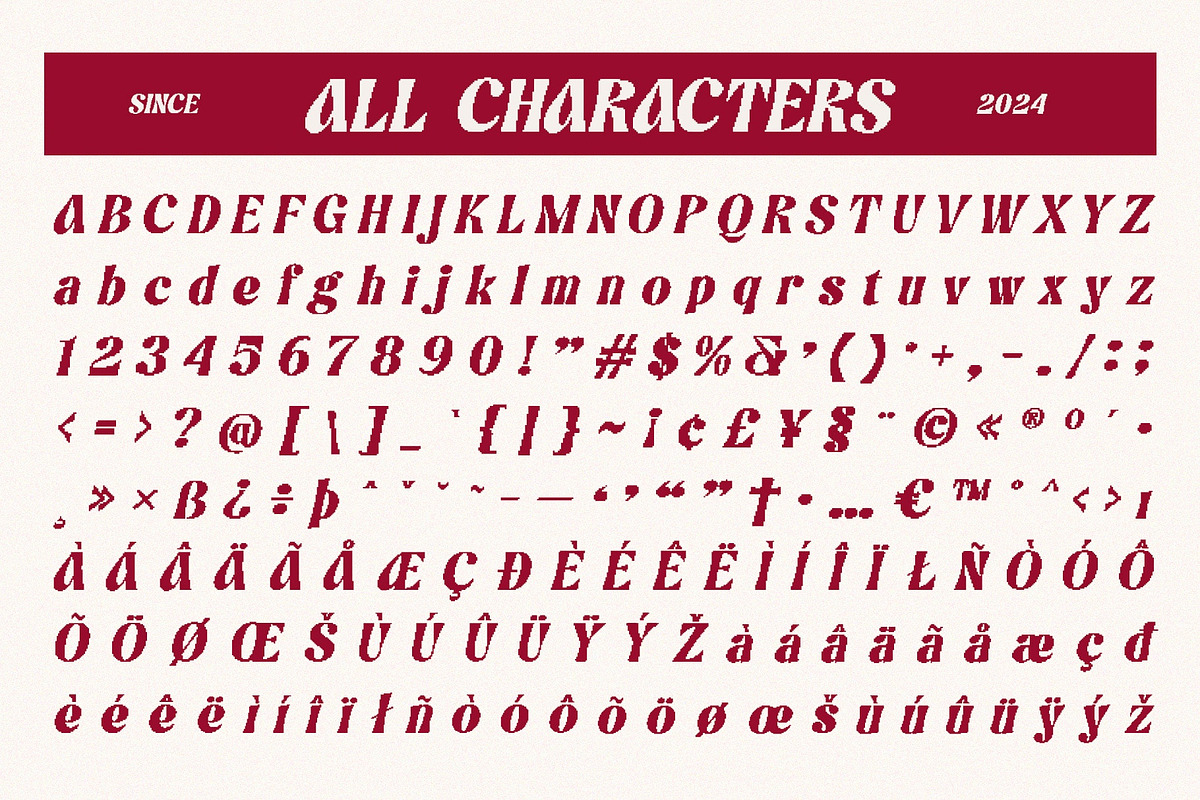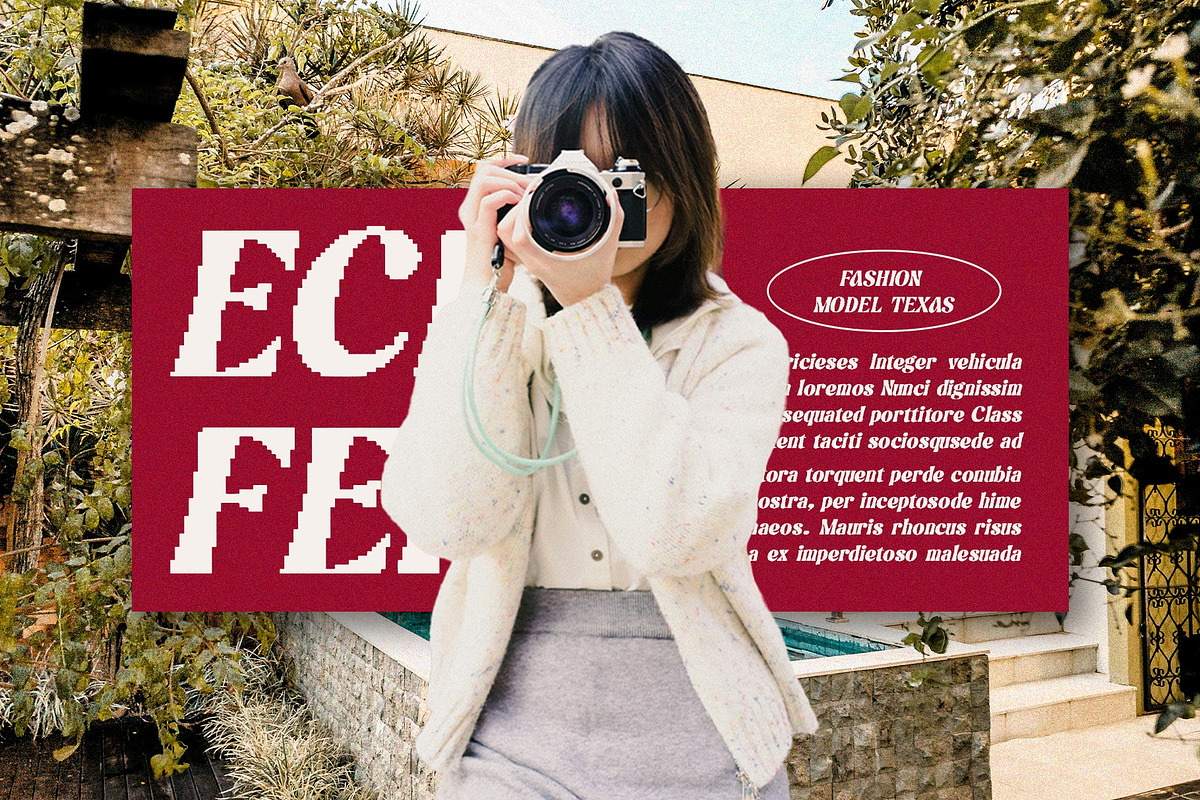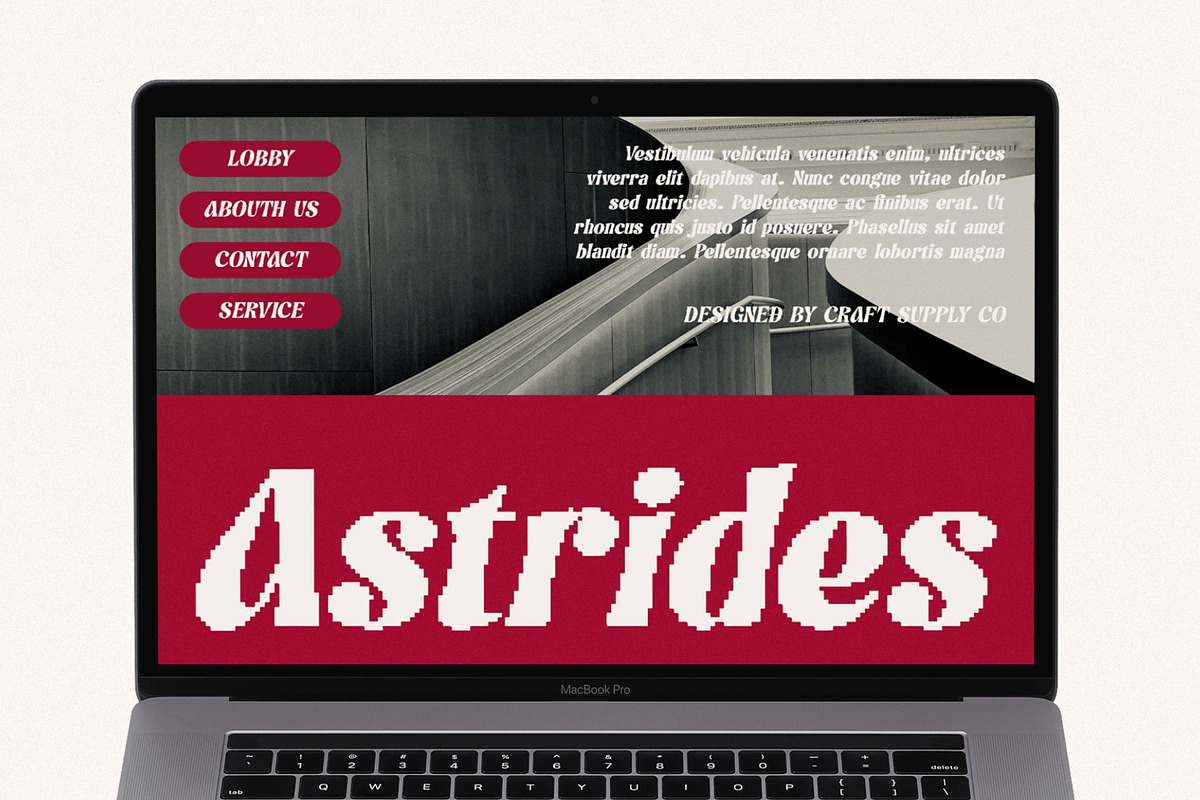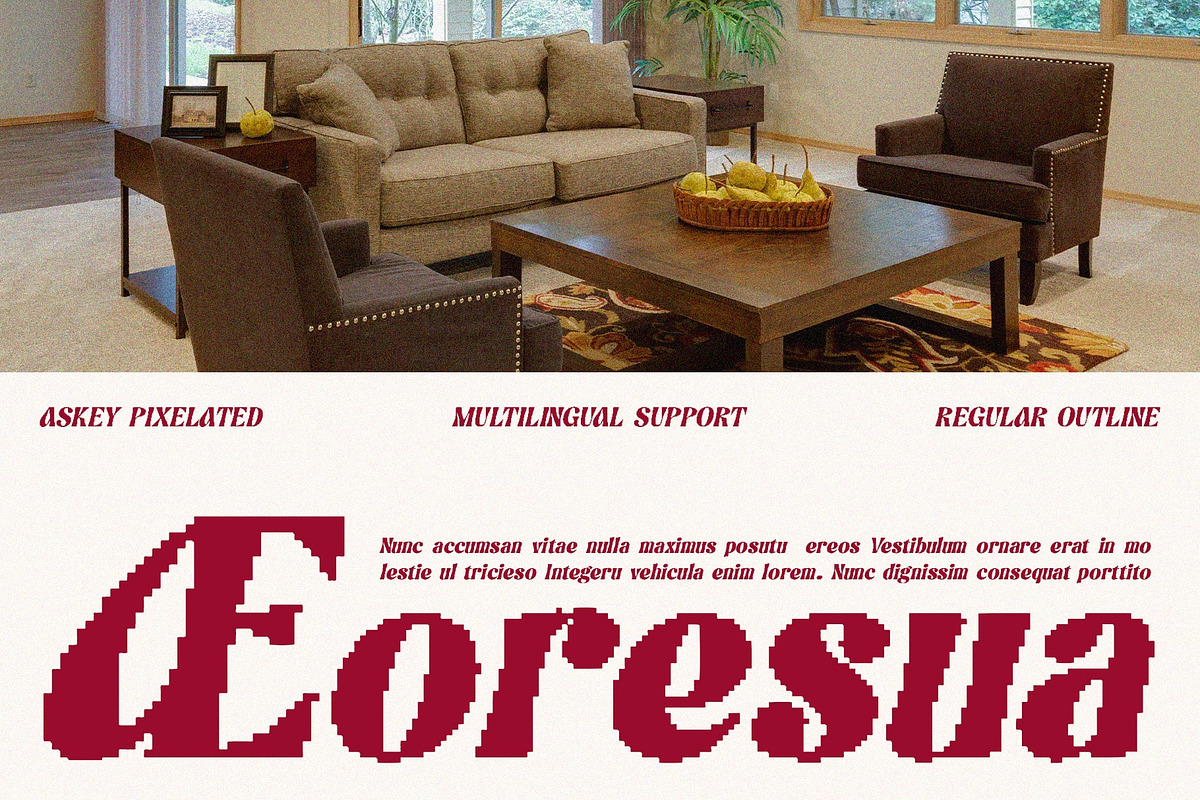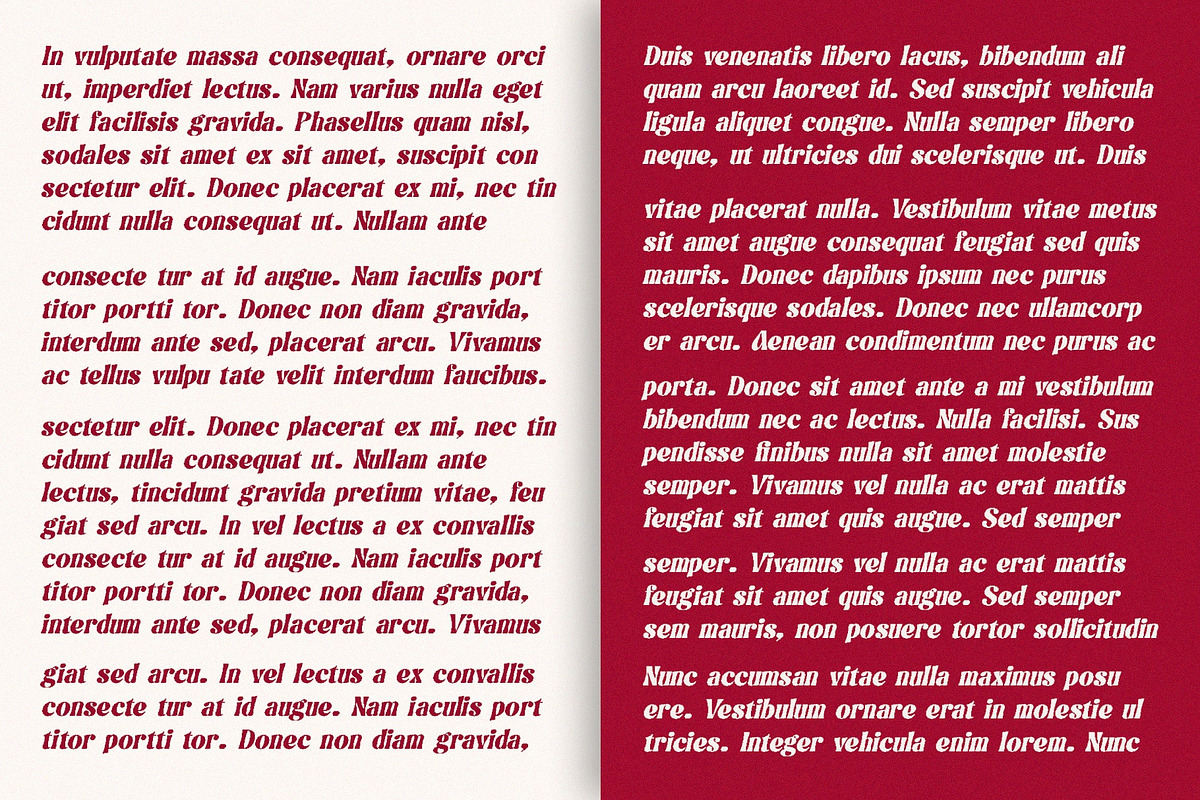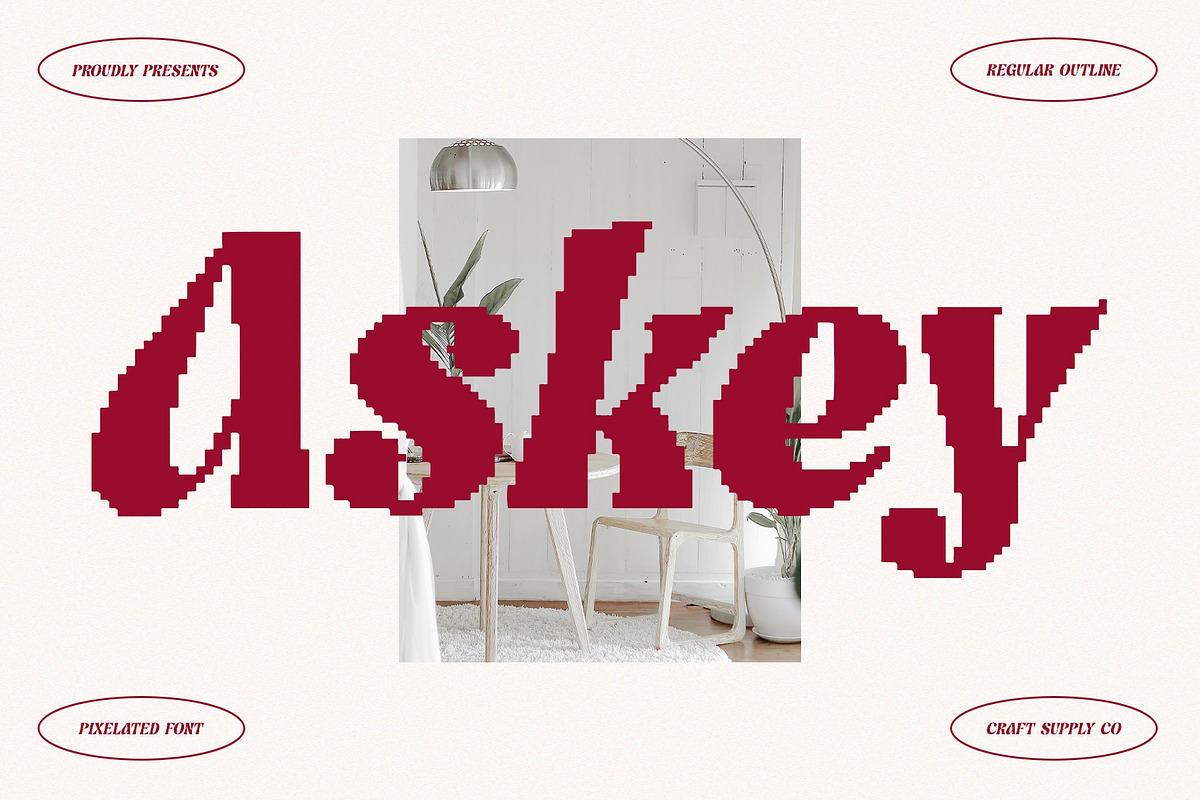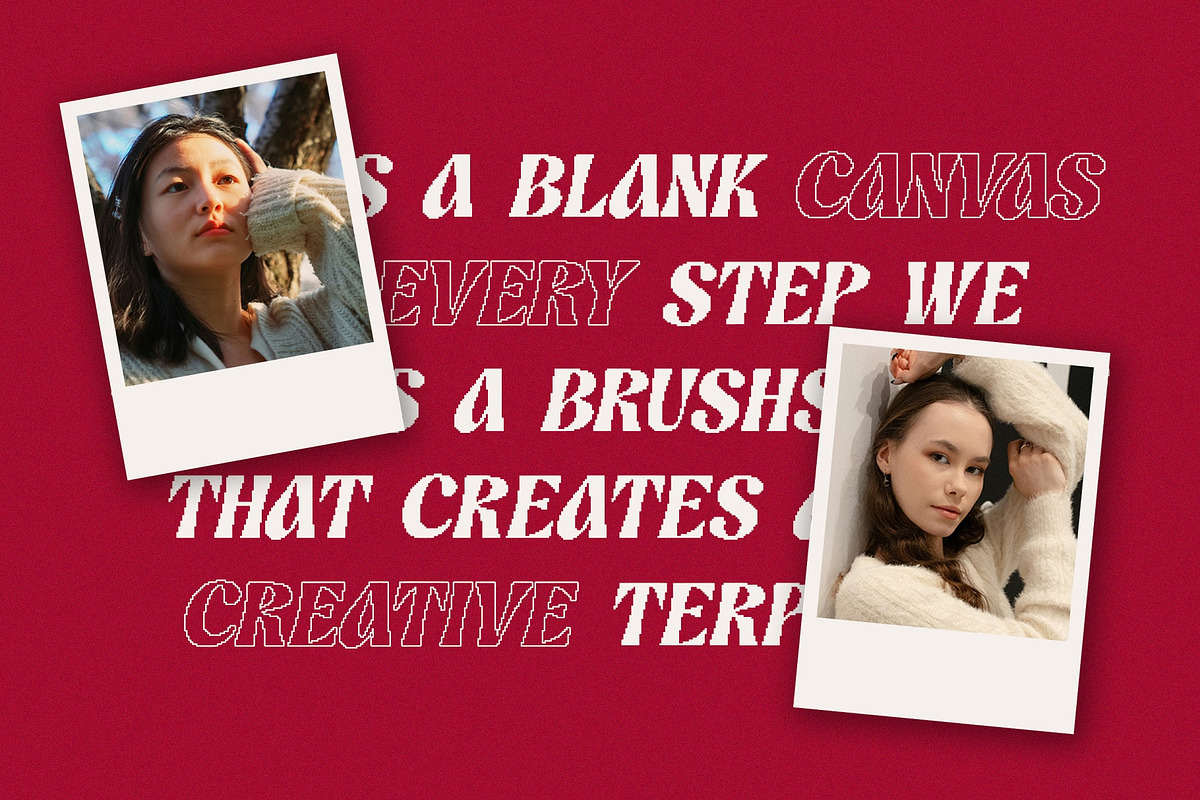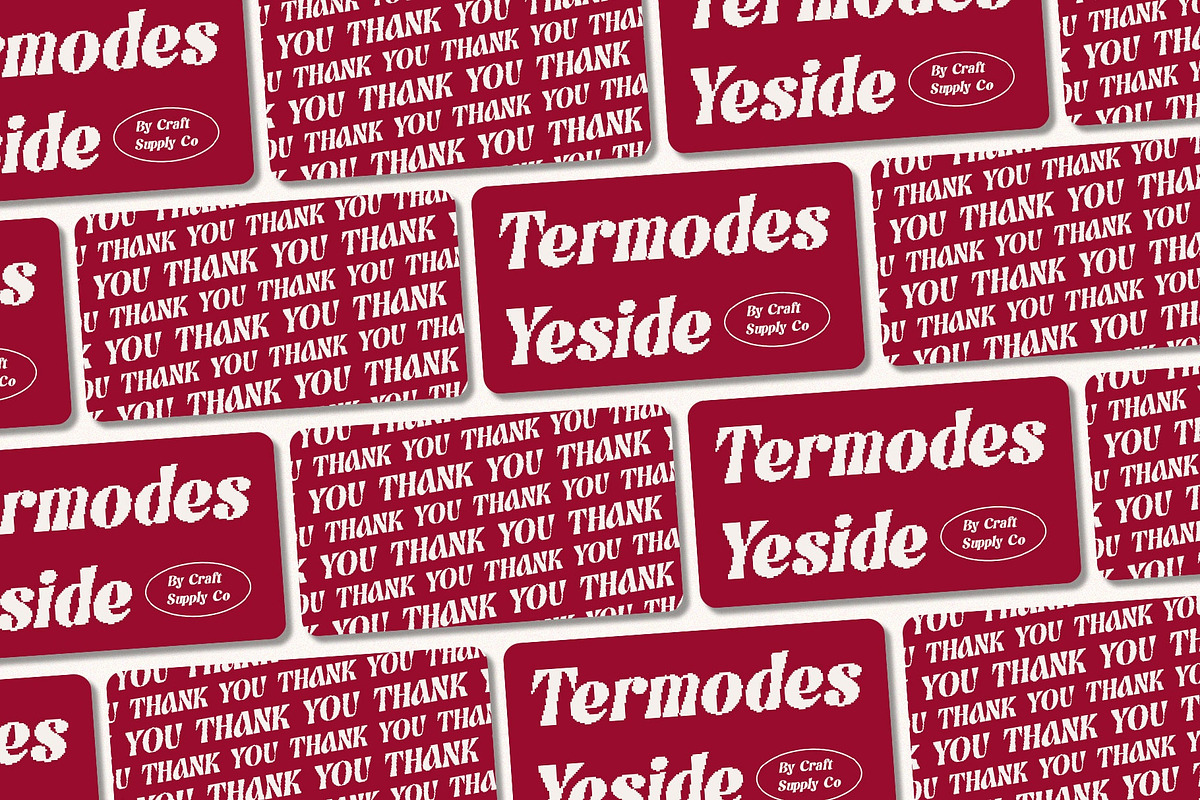
Askey Pixel
Askey Pixel: Bold Serif Font with a Cute and Funky Impression
Display Serif with Pixel Effects
Askey Pixel is a bold serif font that captivates with its cute and funky impression, enhanced by unique pixel effects. This font seamlessly blends modern cheerfulness with traditional serif design elements, making it a standout choice for projects seeking a distinctive visual style.
Playful Yet Bold Design
The playful charm of Askey Pixel is evident in its bold serif structure, which exudes confidence and creativity. Each character is crafted to maintain clarity and readability while adding a touch of whimsy through pixelated details, ensuring it catches the eye in any application.
Versatile for Creative Expression
Despite its bold appearance, Askey Pixel remains versatile for a wide range of creative expressions. Whether used for eye-catching headlines, memorable branding, or engaging posters, this font offers the perfect balance of personality and professionalism.
Enhanced Visual Impact
The incorporation of pixel effects into Askey Pixel enhances its visual impact, giving each letter a unique character that resonates with modern digital aesthetics. This feature makes it ideal for digital platforms, gaming-related designs, and any project aiming to infuse a sense of fun and innovation.
- Askey Pixel Regular
- Askey Pixel Outline